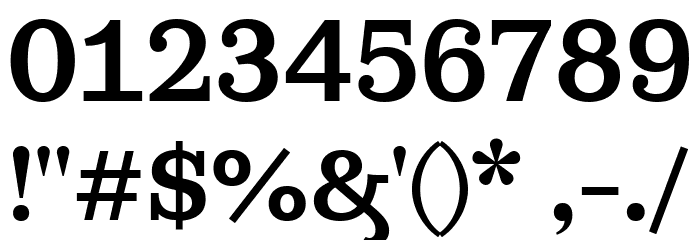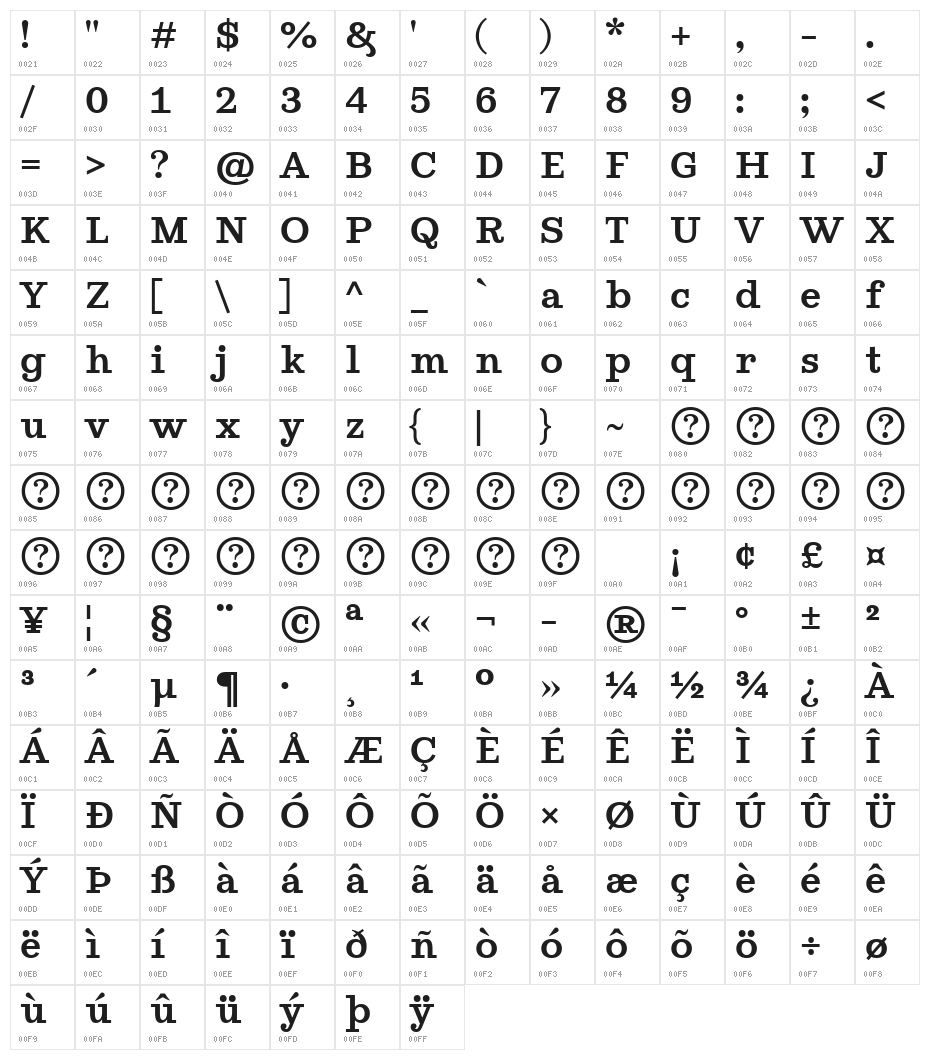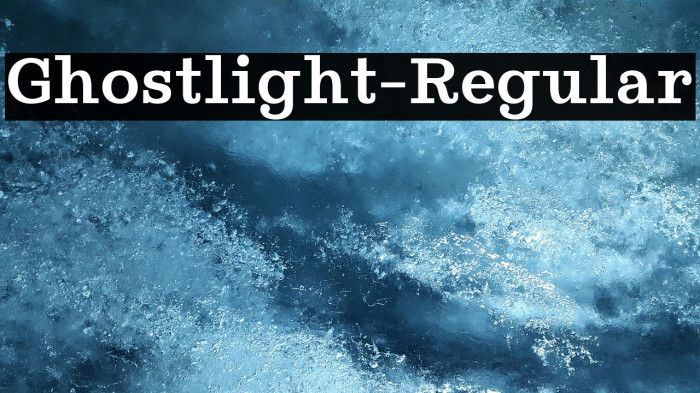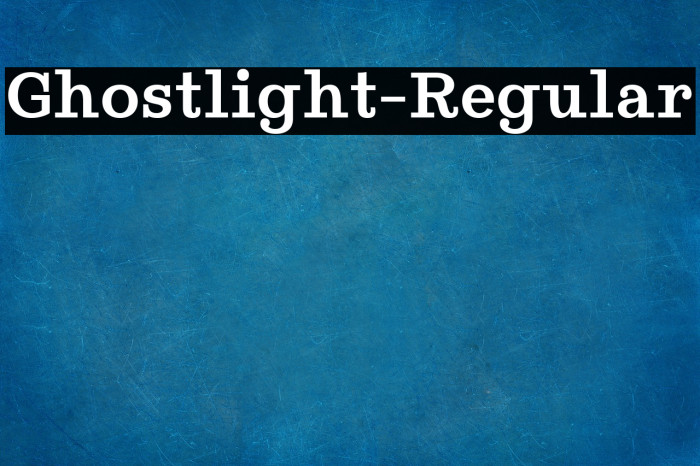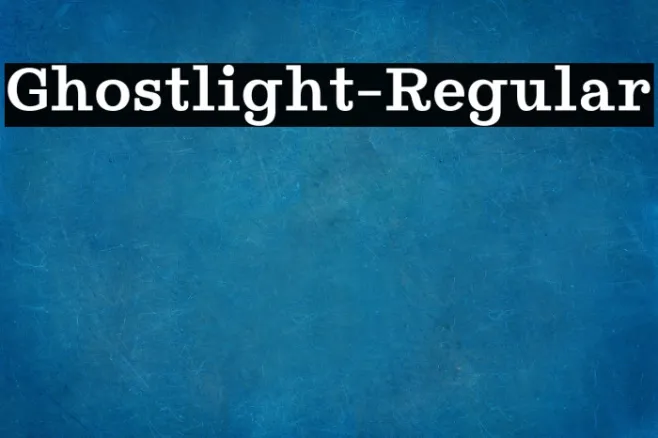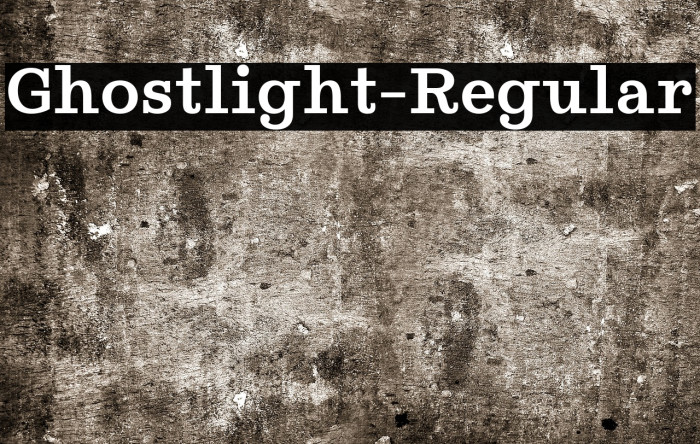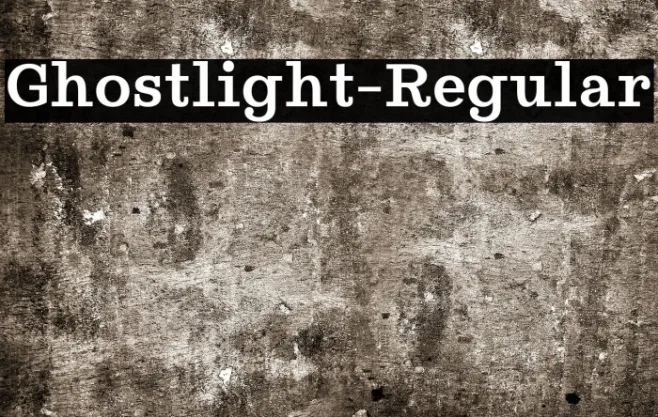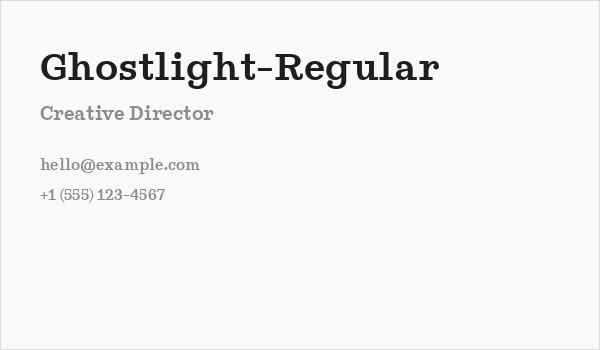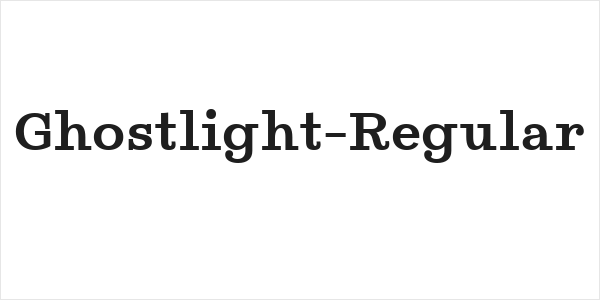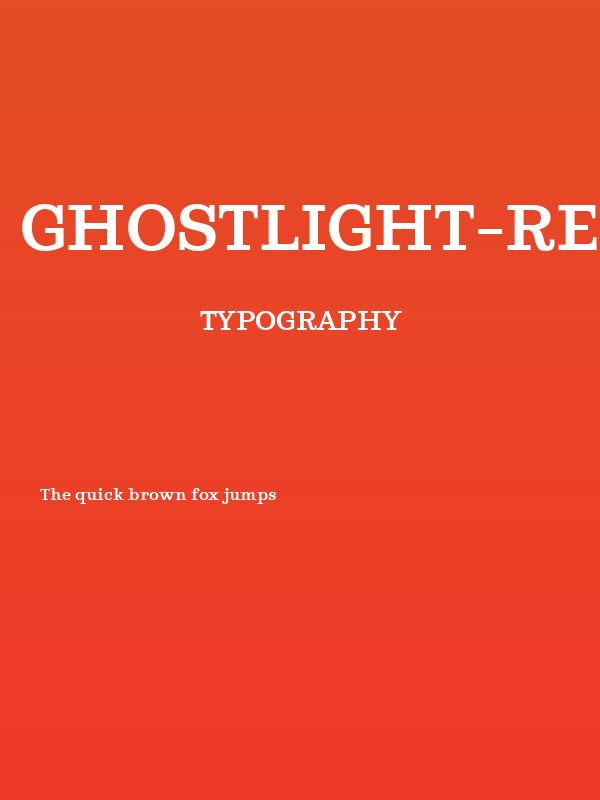
Ghostlight-Regular Font
Ghostlight-Regular Description
This font features a classic serif style with strong, bold strokes and high contrast between thick and thin lines. The characters are well-defined with sharp serifs, giving it a traditional and authoritative appearance. The uppercase letters are tall and commanding, while the lowercase letters maintain a consistent and balanced form. Numerals are clear and distinct, making them easily readable. The special characters are elegantly designed, complementing the overall aesthetic of the font. This typeface is versatile, suitable for both digital and print media, providing a timeless and professional look.